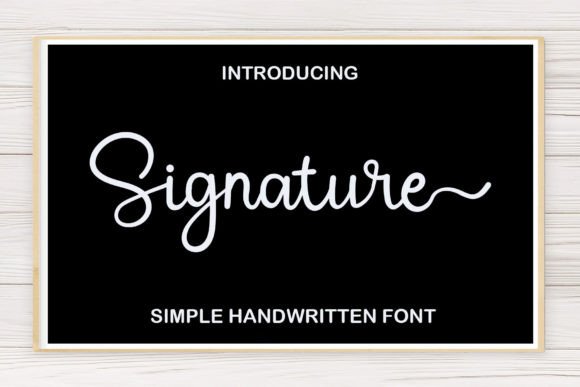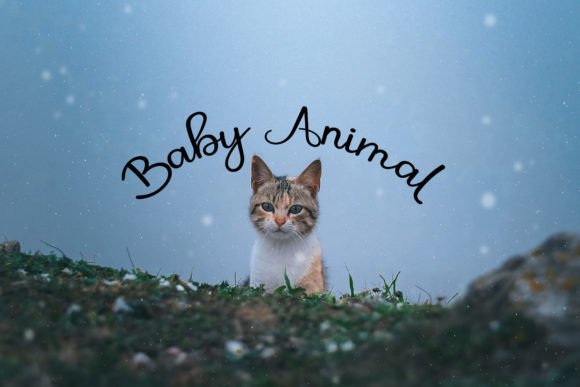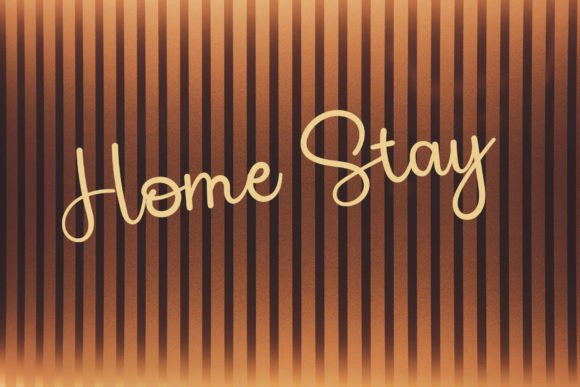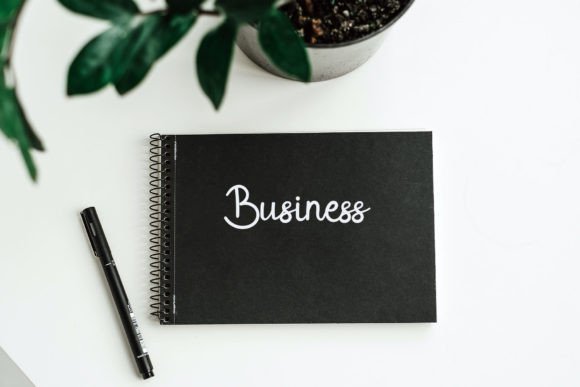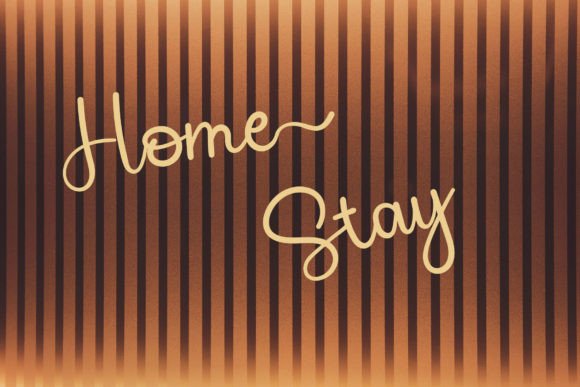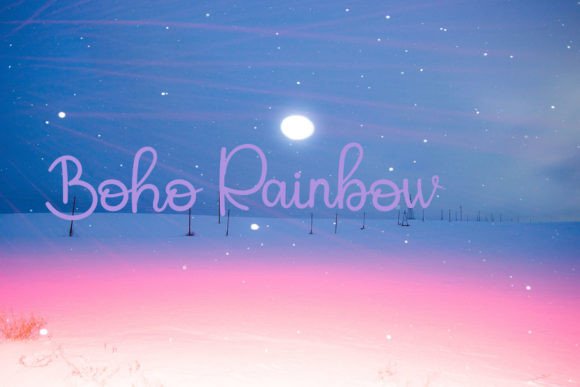
Introducing Signature, a sweet and beautiful handwritten font designed to bring a touch of luxury to your creative projects. With characters that gracefully dance along the baseline, Signature adds an elegant and sophisticated spark to any design project you wish to create.
The flowing and charming script of Signature brings a sense of refinement and beauty to your designs. Whether you’re working on invitations, branding, posters, or any project that demands a luxurious touch, Signature is the perfect choice.
Imagine the impact of Signature on your designs, where each letter exudes a sense of grace and sophistication. Picture it enhancing wedding invitations, creating an atmosphere of elegance and romance. Envision it gracing a brand’s logo, adding a touch of luxury that makes it truly stand out.
Signature is more than just a font; it’s a creative tool that elevates your designs to new heights. Let it be the signature element that adds a luxurious spark to your projects, making them visually stunning and memorable.
Add Signature to your font collection and experience how it transforms your creative endeavors with its sweet and beautiful handwritten charm. Let it be the go-to choice for expressing luxury and elegance in your designs, making each creation truly special.